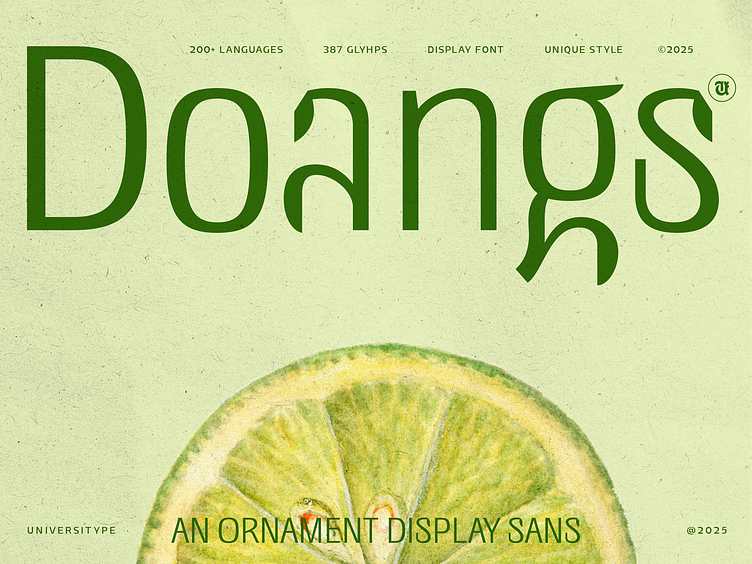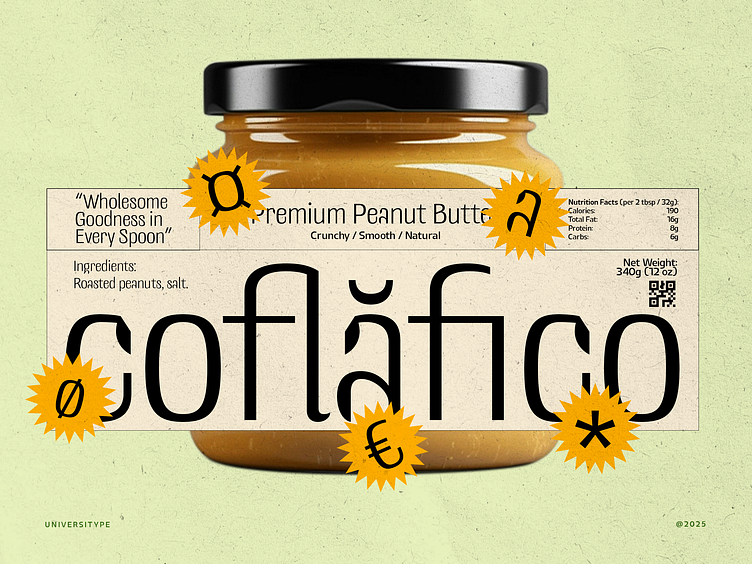
An Ornament Display Font - UT Doangs
UT Doangs draws inspiration from Nick Moran’s sculpture “263 Sonnet”, a minimalist metal form that captures both tension and grace. The sculpture’s ability to balance raw industrial materials with delicate, poetic flow was the spark that lit the creative fire for this typeface. Each curve, gap, and negative space in the sculpture felt like a character waiting to be born—where form doesn’t follow function, but emotion.
In translating this into type, every letter in UT Doangs was treated as a miniature sculpture. The design process involved sketching directly over the sculpture’s silhouette, extracting rhythmic gestures, and evolving them into glyphs with purpose and personality. This font doesn’t just represent text—it communicates structure, motion, and a tactile story. UT Doangs is more than a typeface; it’s a visual homage to the artistry of materials shaped by human intention.